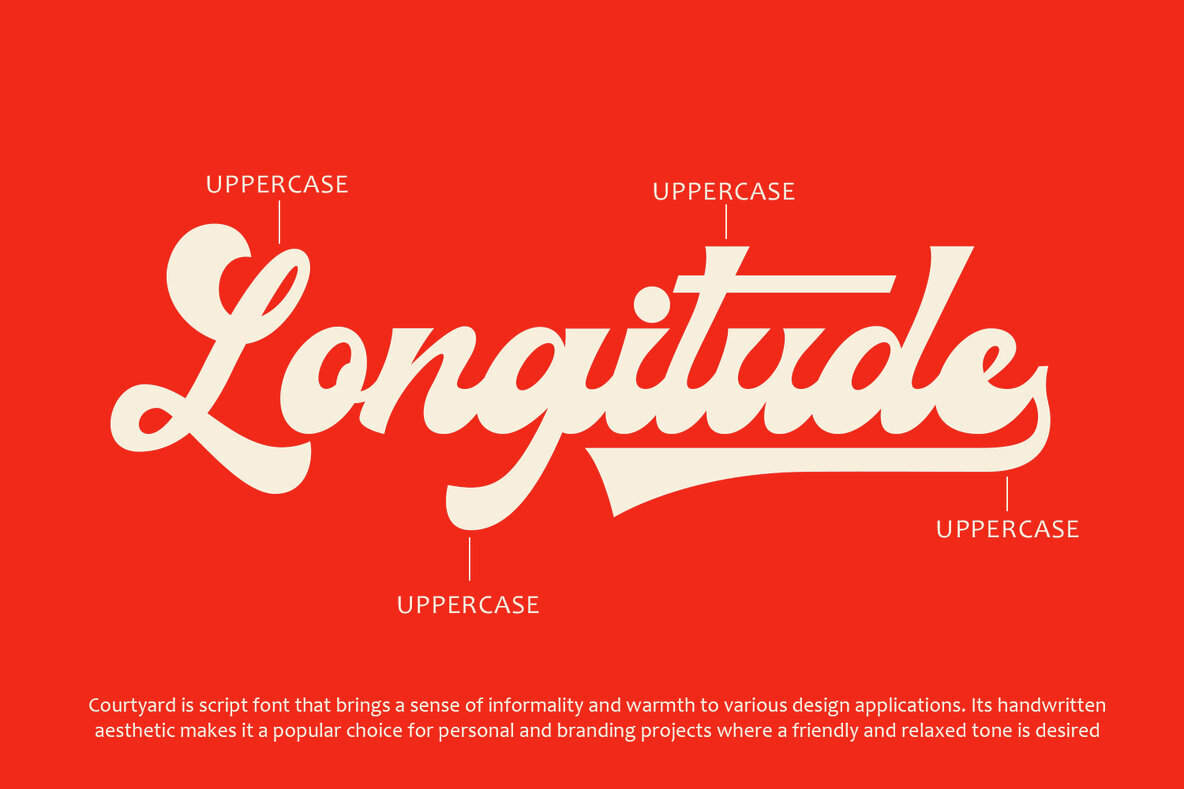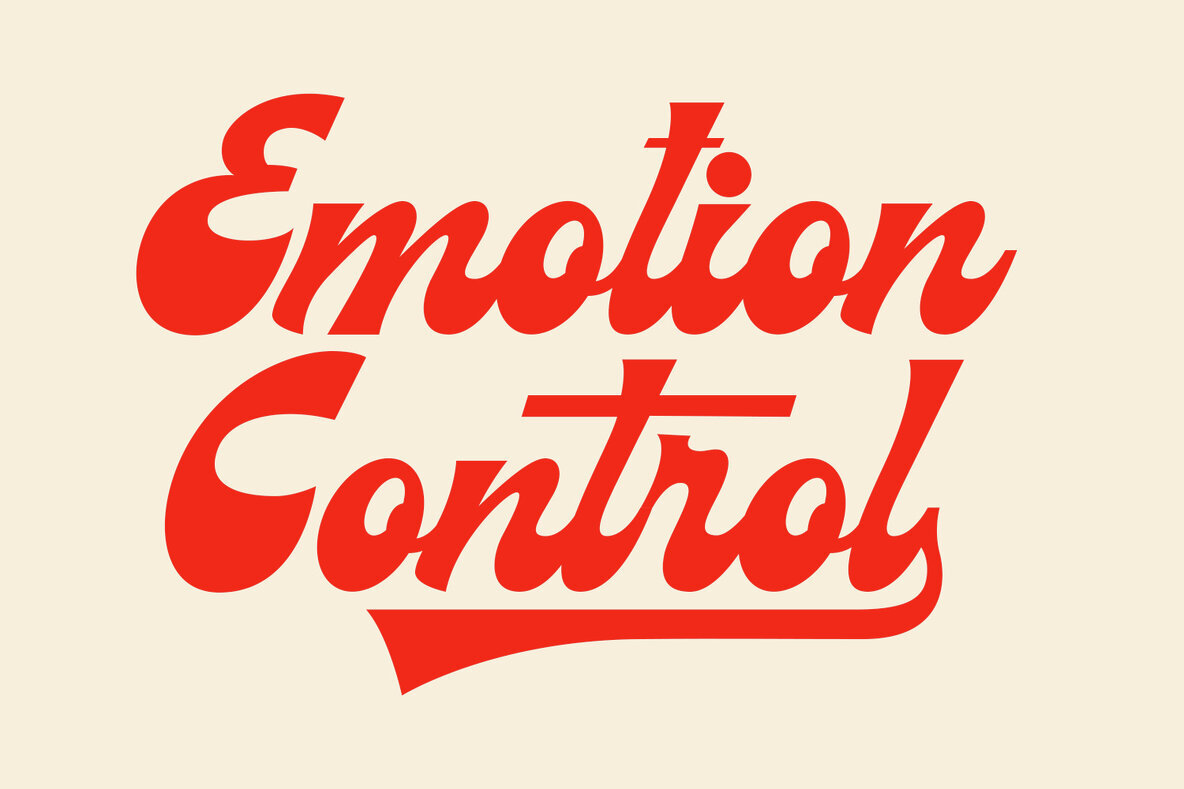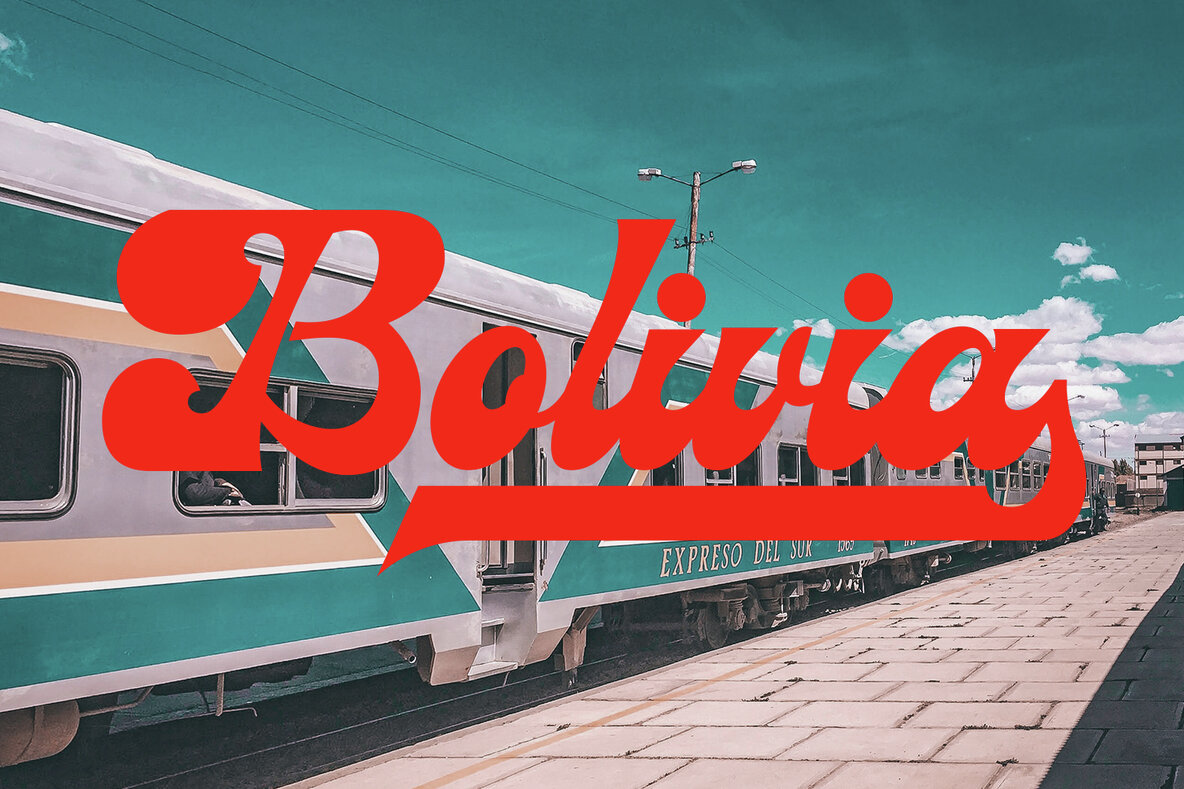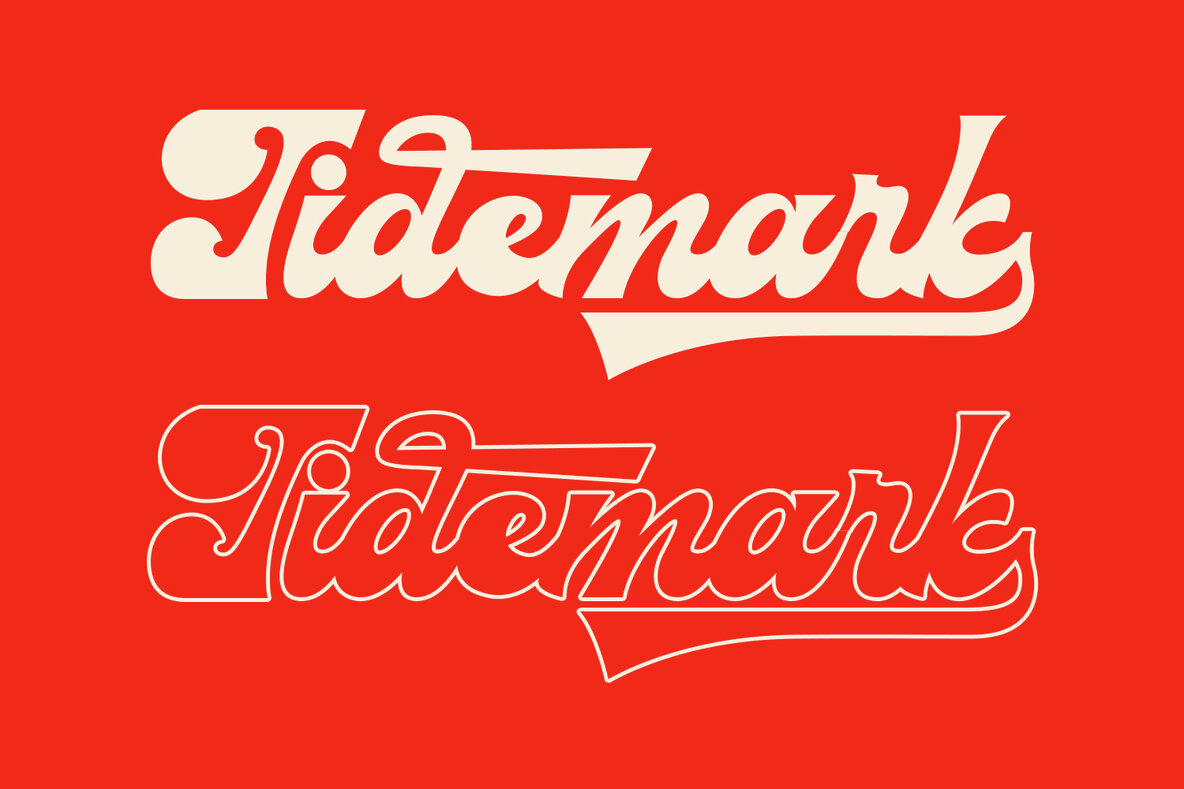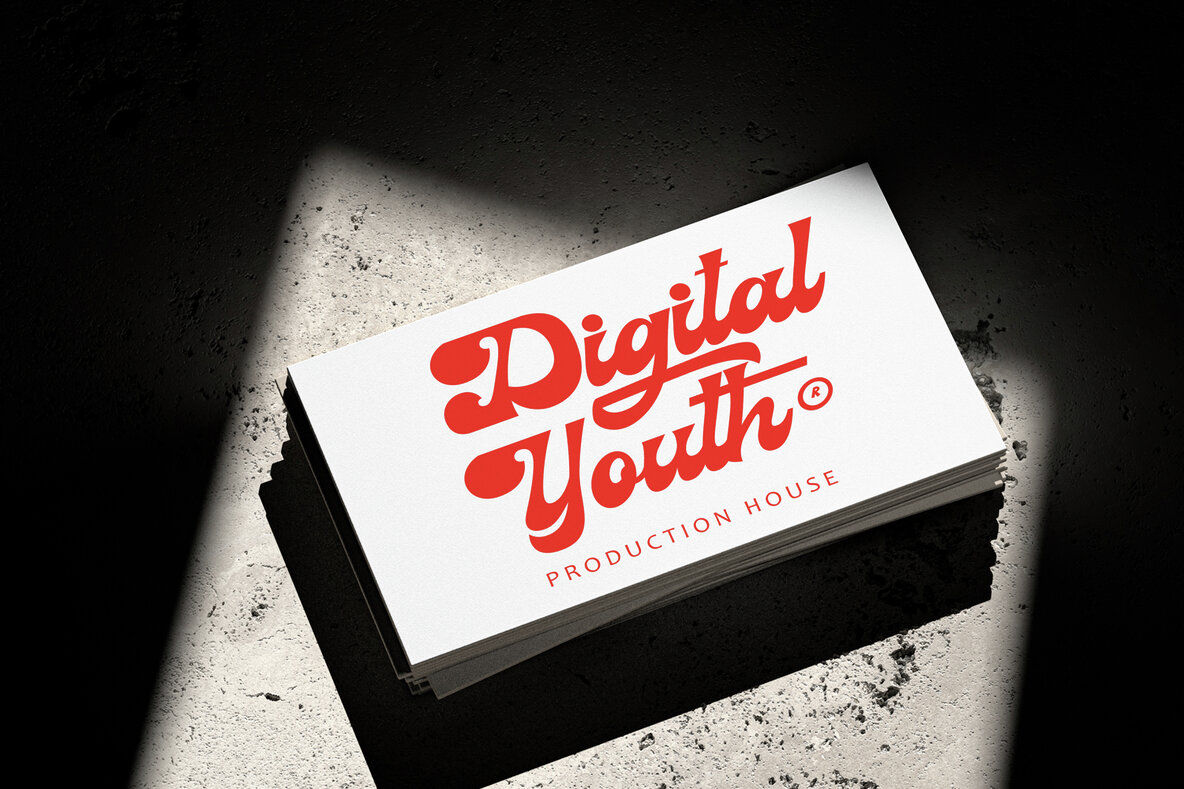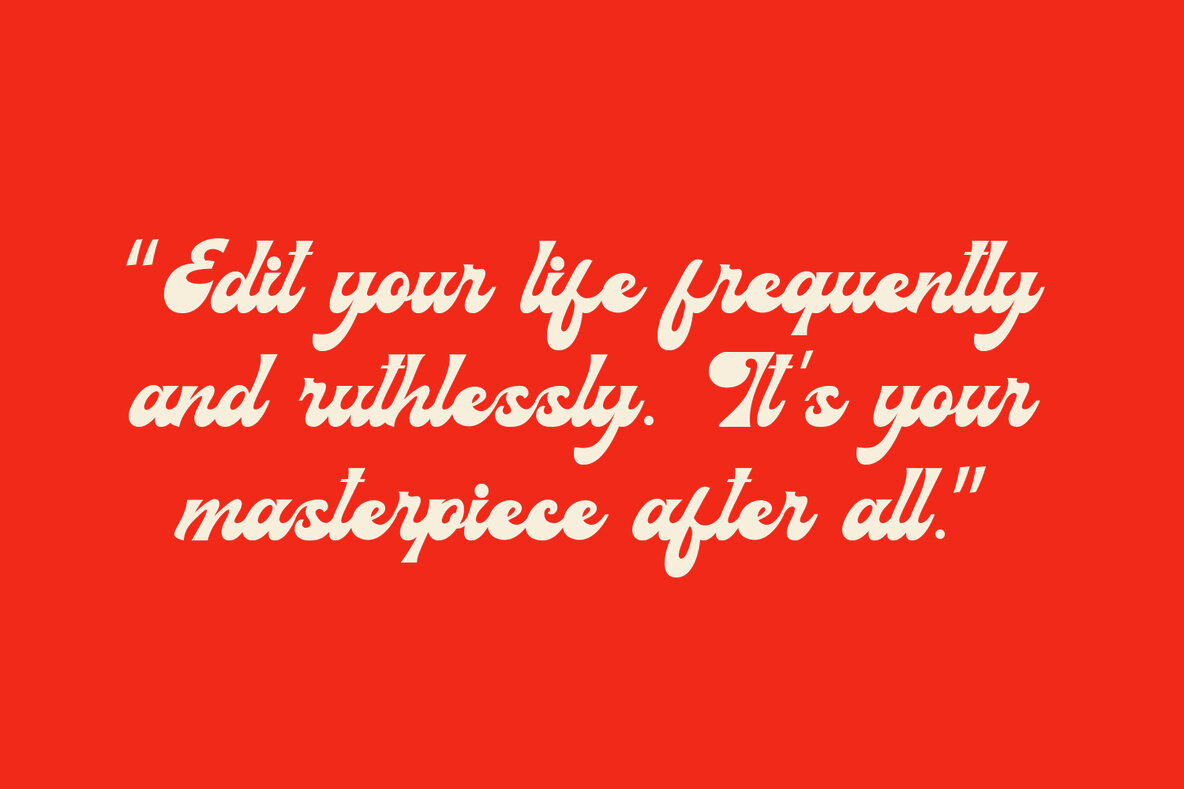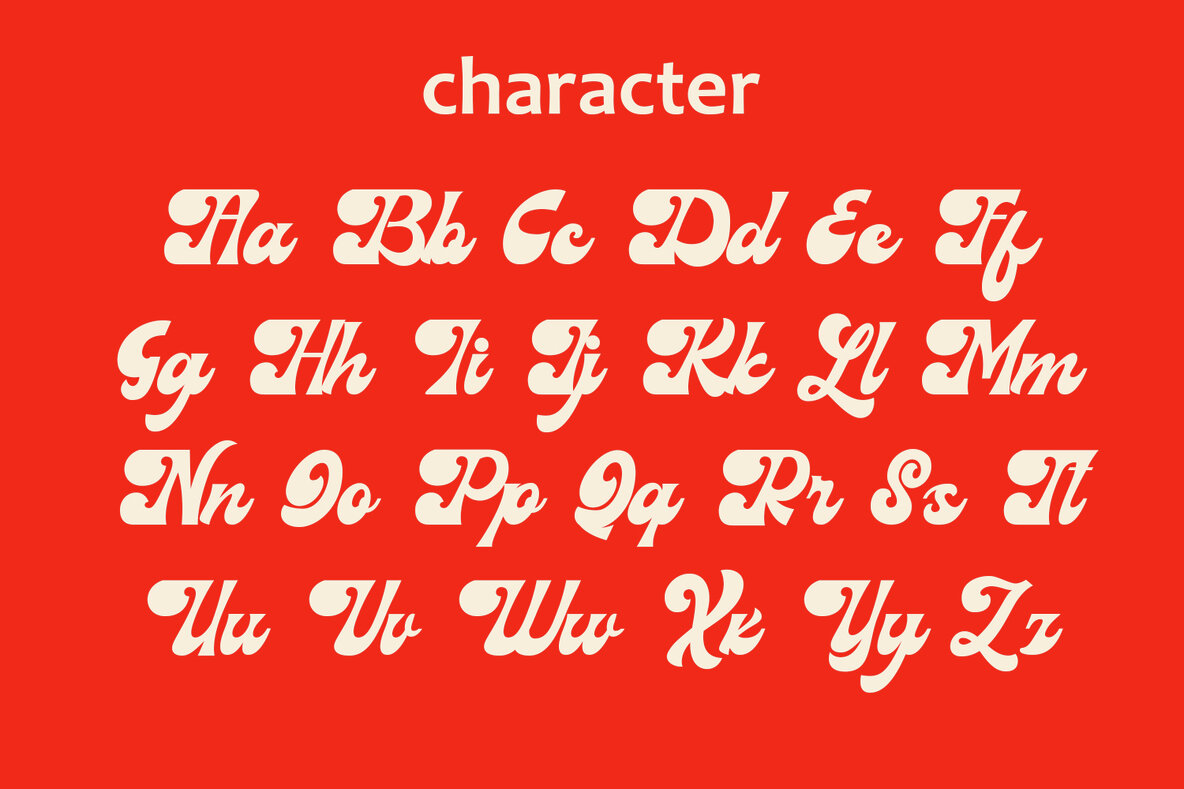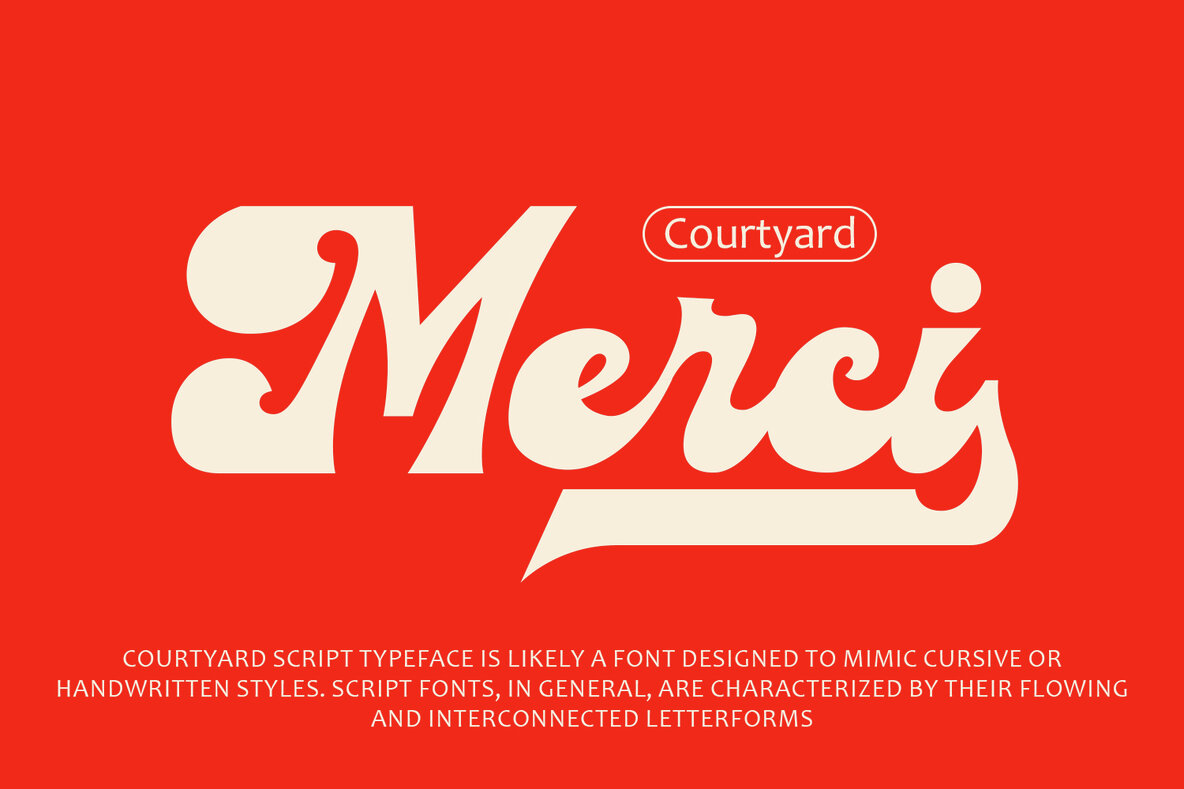
Courtyard Font
Courtyard Regular
Courtyard script typeface is likely a font designed to mimic cursive or handwritten styles. Script fonts, in general, are characterized by their flowing and interconnected letterforms, resembling natural handwriting. Here are some features and potential attributes: